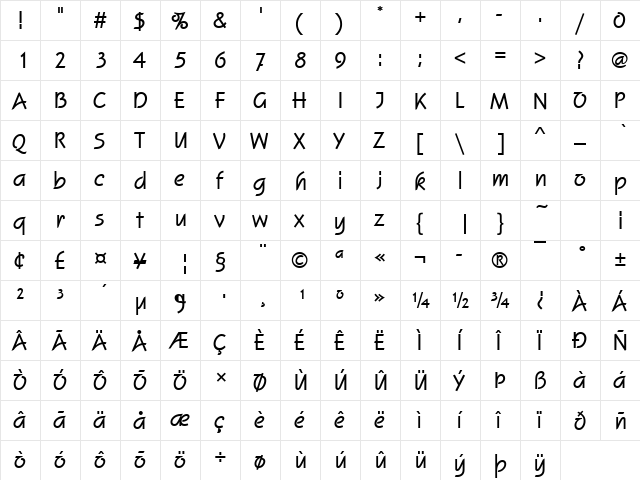
URWStiboriusD Bold Font Preview
URWStiboriusD Bold
Design Context for URWStiboriusD Typeface
URWStiboriusD is a composed and adaptable typeface that performs quietly and consistently across a wide range of design contexts. The heavy weight commands attention and anchors typographic hierarchies.